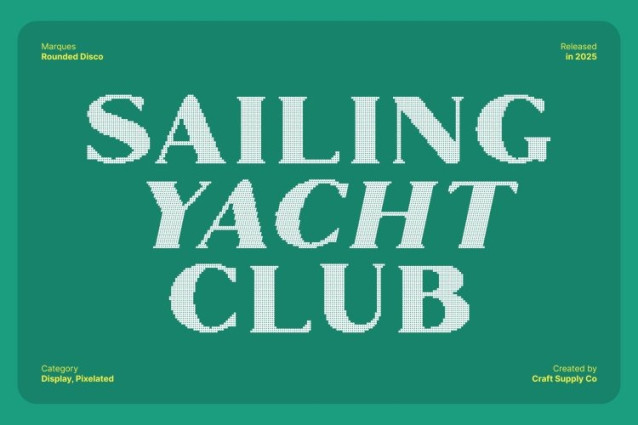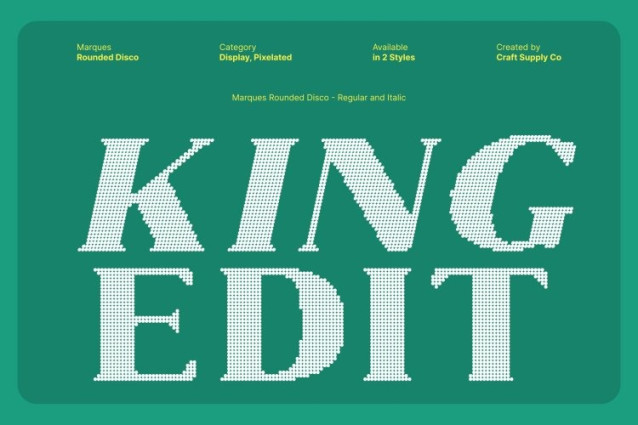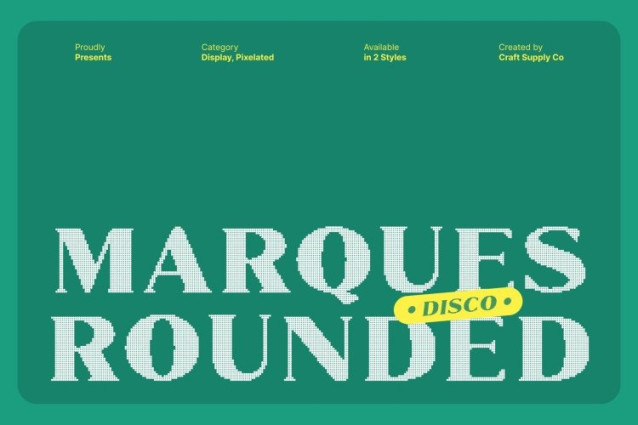
Marques Rounded Disco Font
Marques Rounded Disco Font This is a modern serif display font designed with thick, confident strokes that ensure strong readability and visual clarity. The sturdy serif structure gives it a refined yet approachable presence, making it ideal for projects that need both elegance and impact. Its bold proportions command attention, allowing titles, headlines, and brand names to stand out effortlessly.
Rounded Details for a Softer, Contemporary Feel
With its rounded terminals and polished contours, this font blends modern sophistication with a friendly, contemporary touch. These smooth edges add warmth to its bold form, making the font feel more versatile across various themes from editorial layouts to lifestyle branding.
Disco Effect for Sparkle and Glamour
The added disco effect transforms this serif font into a glamorous showpiece. Each letter glows with subtle sparkle and rhythmic, channeling the energy of nightlife, parties, and retro dance floors. This effect elevates Marques Rounded Disco into a visually captivating font perfect for festive and fashion-forward designs seeking a dash of shine and movement.
Perfect for Bold Titles and Party-Themed Designs
Created as a display font, this font shines in large sizes where its details can truly stand out. Whether used for party posters, glamorous event branding, bold headlines, or eye-catching social media graphics, it brings both readability and style.